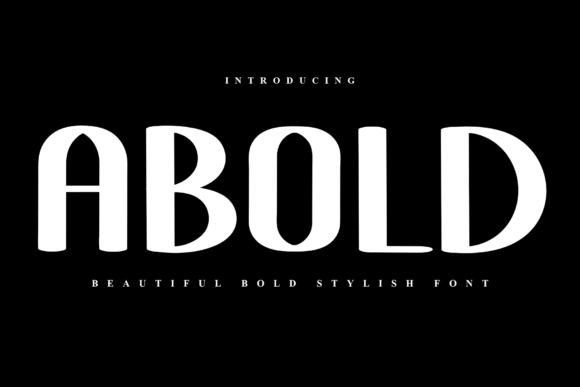
The Power of Abold: Elevate Your Designs with a Stunning Display Font
I’ll never forget the design project that made me fall in love with the Abold font. I was working on a luxury brand campaign, and my client requested a bold, eye-catching headline that would make their competitors green with envy. As I scoured the internet for the perfect font, I stumbled upon Abold – and it was love at first sight! ✨
Abold is a powerful and high-contrast display font designed for maximum visual impact and sophisticated style. Its massive, blocky letterforms with dramatic transitions between ultra-thick stems and elegant, thin horizontal bars make it a premier choice for high-end editorial headlines, luxury brand logos, cinematic titles, and impactful advertising.
An Honest Review of Abold
What I Love About Abold
- ✨ Stunning contrast: The dramatic transitions between thick and thin lines create a visually striking effect that’s sure to grab attention.
- ✅ Elegant and sophisticated: Abold’s refined features make it perfect for high-end designs, from luxury brands to cinematic titles.
- 💥 Impactful and bold: This font is designed to make a statement, and it delivers – perfect for headlines, titles, and advertising.
While Abold is an amazing font, there are a few things to keep in mind: 🤔
- ⚠️ Legibility at small sizes: Due to its bold and condensed design, Abold may not be the best choice for body text or small font sizes.
- ⚠️ Limited OpenType features: While Abold has some great OpenType features, it may not have as many as some other fonts on the market.
The Story Behind Abold
Abold was designed with one goal in mind: to create a font that would make a statement. Its creator, a talented type designer, drew inspiration from classic bold fonts and infused them with modern flair. The result is a font that’s both elegant and impactful – perfect for designers who want to make their mark.
Q: What is Abold font best used for?
A: Abold is ideal for high-end editorial headlines, luxury brand logos, cinematic titles, and impactful advertising.
Q: Does Abold have OpenType features?
A: Yes, Abold has some great OpenType features, including stylistic alternates and glyphs.